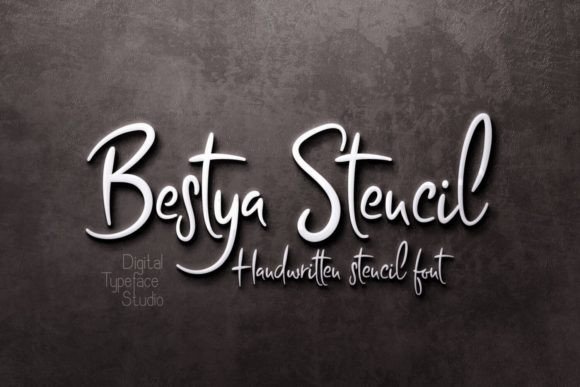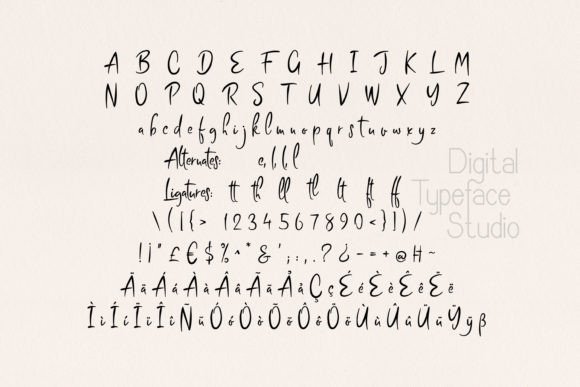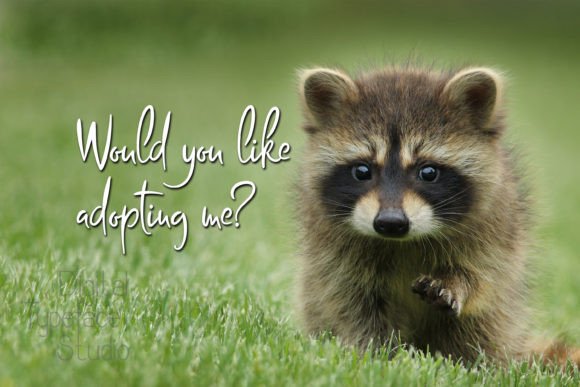
Bestya Stencil is a carefully crafted handwritten stencil font, crafted without closed loops on the characters, so you can create truly unique and original looking designs. It is perfect for cutting projects, crafts, packaging and more!
Bestya Stencil Font